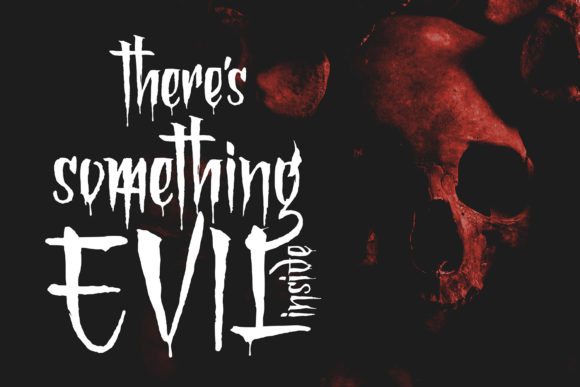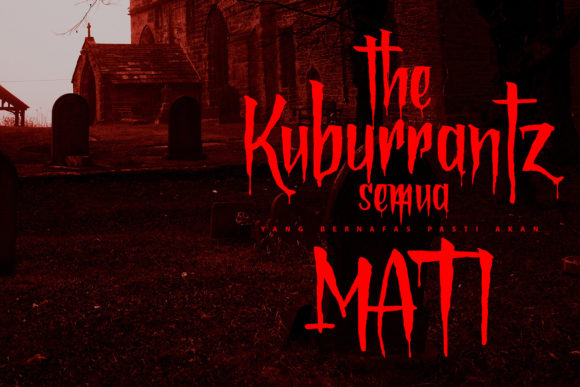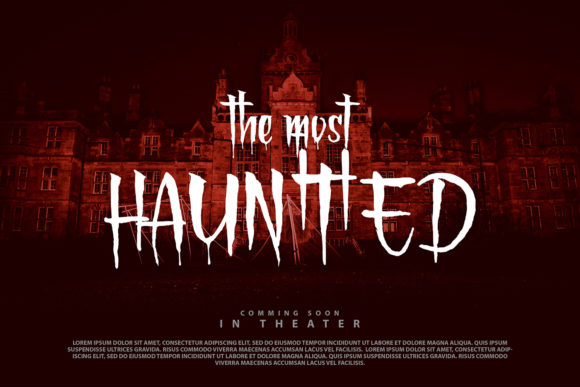
Introduction to Optimistique Font
Optimistique is a scary, spooky and incredibly unique display font.
Add it to each of your Halloween designs or October parties, and notice how it makes them come to life .
Why Choose Optimistique Font?
Optimistique Font offers exceptional quality and versatility, making it a valuable addition to your design toolkit. Whether you’re creating for personal projects or commercial use, Optimistique Font delivers professional results.